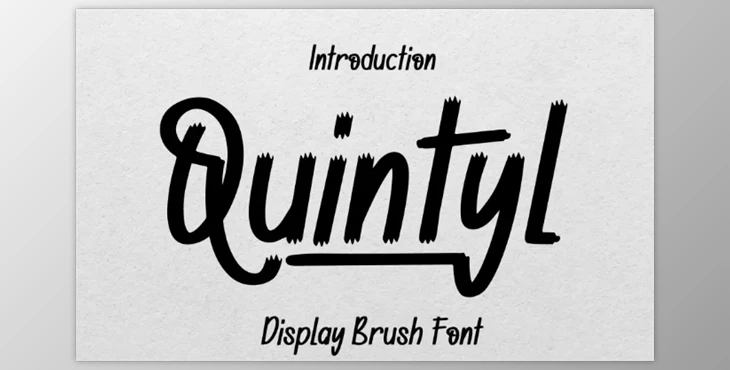
Quintyl - Brush Font: Introducing Quintyl, a distinctive display typeface crafted for titles, large text, branding, logotypes, and various graphic design applications like posters, pamphlets, and advertisements. This letter font is an excellent option for crafting outstanding logos, promotional content, and marketing presentations that infuse a sense of uniqueness and freshness.
Elevate your design projects with Quintyl, a typeface designed to bring a touch of distinction and creativity to your visual compositions.
- Includes both Uppercase and Lowercase letters
- Numerals and Punctuation marks are included
- Offers Alternate characters for added flexibility